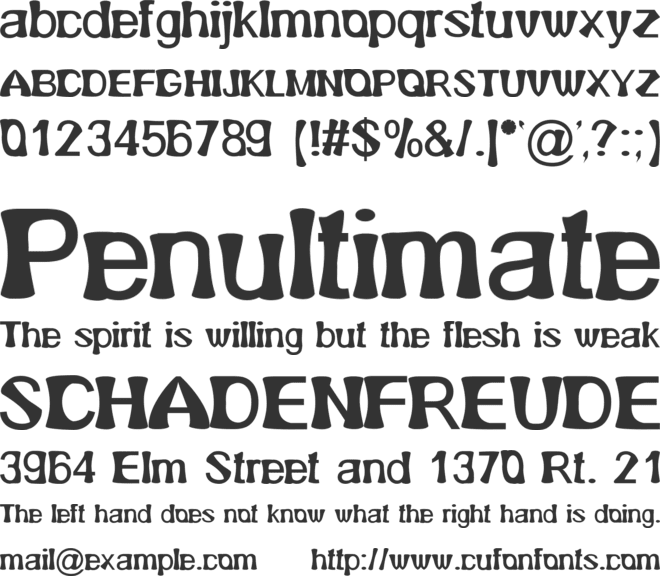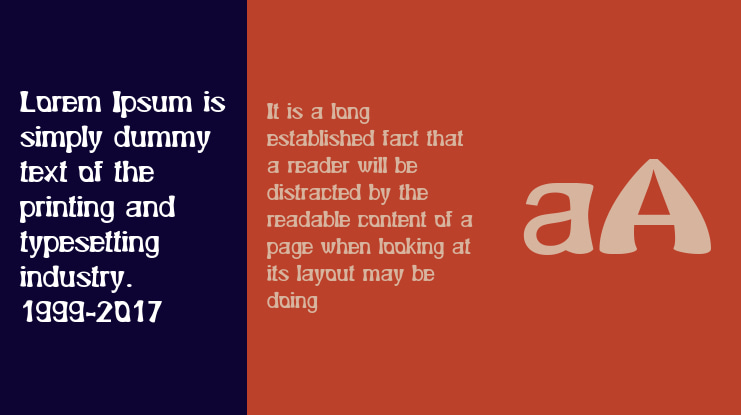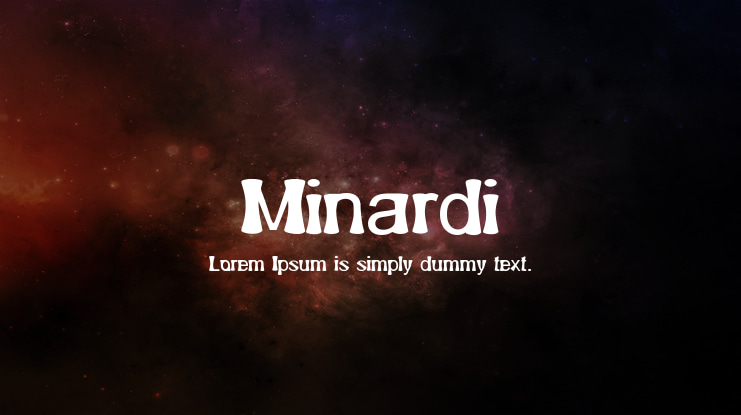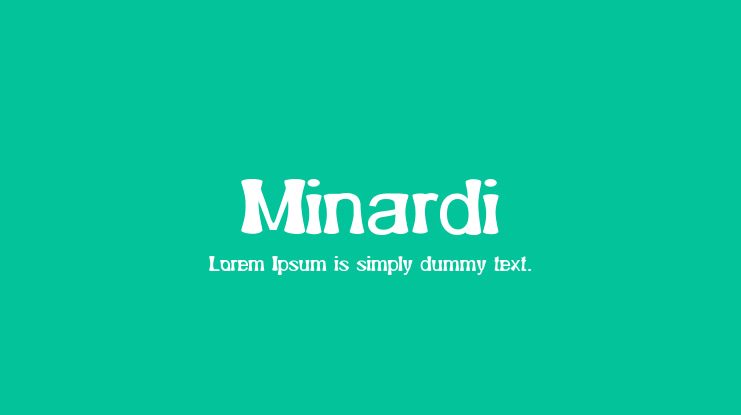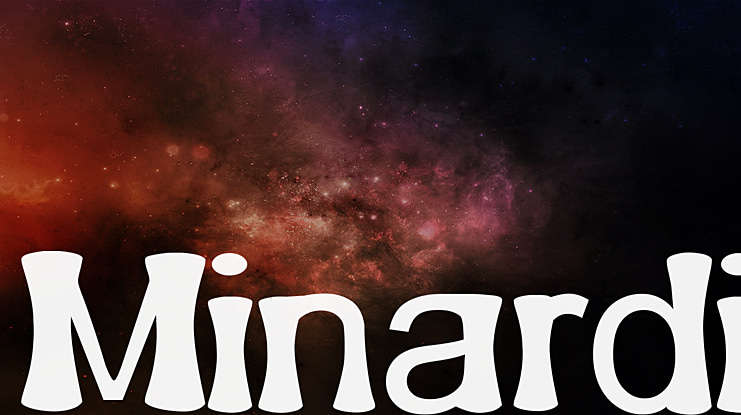
Minardi Font Family
P. A. Vannucci
From the tradition of the painters of the Faentina school, a font that wants to combine the PoP taste with the graphic style of modern illustration placed in comics and cinema.
Dalla tradizione dei pittori della scuola Faentina, un font che vuole unire il gusto PoP con lo stile grafico dell’illustrazione moderna riposta nel fumetto e nel cinema.